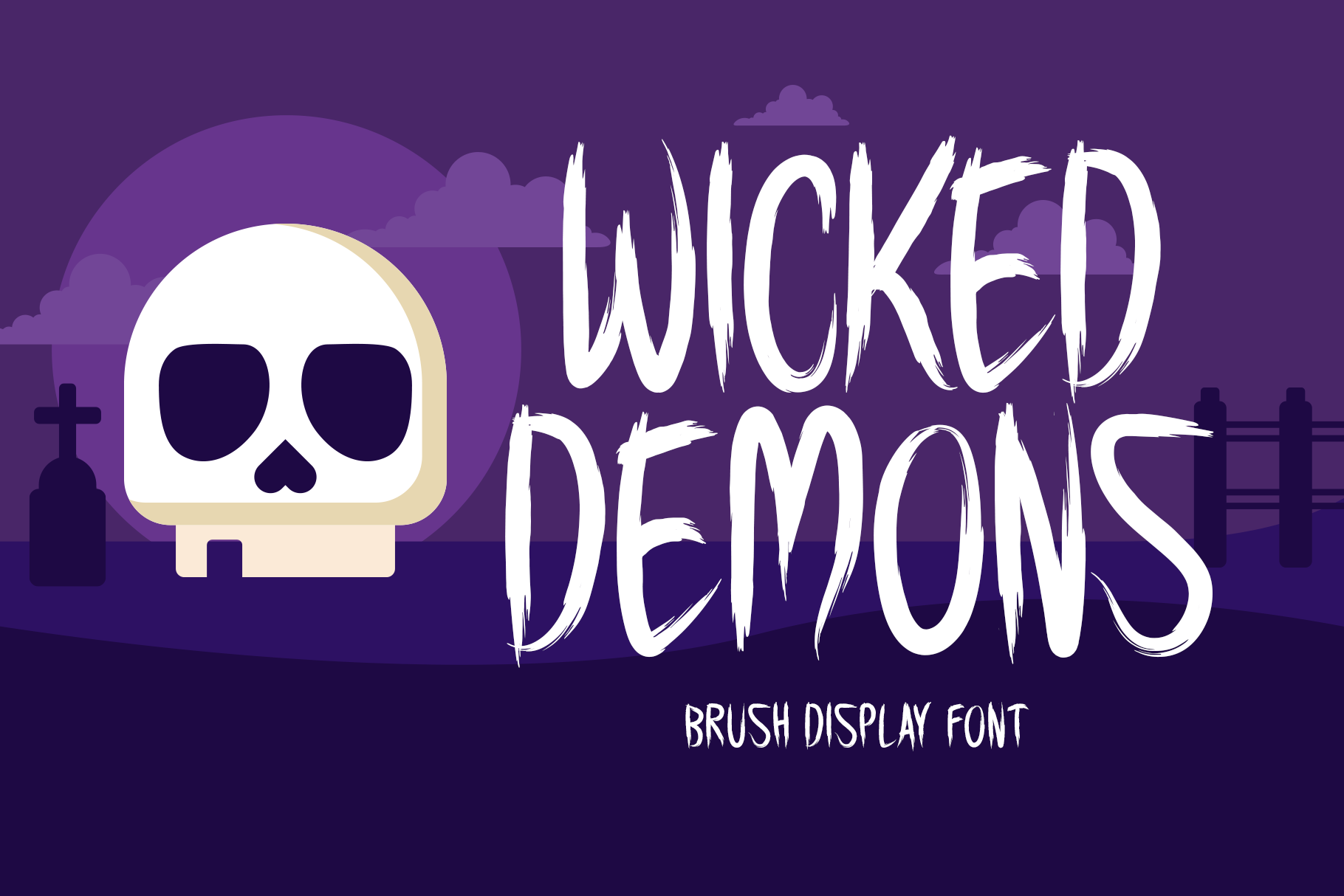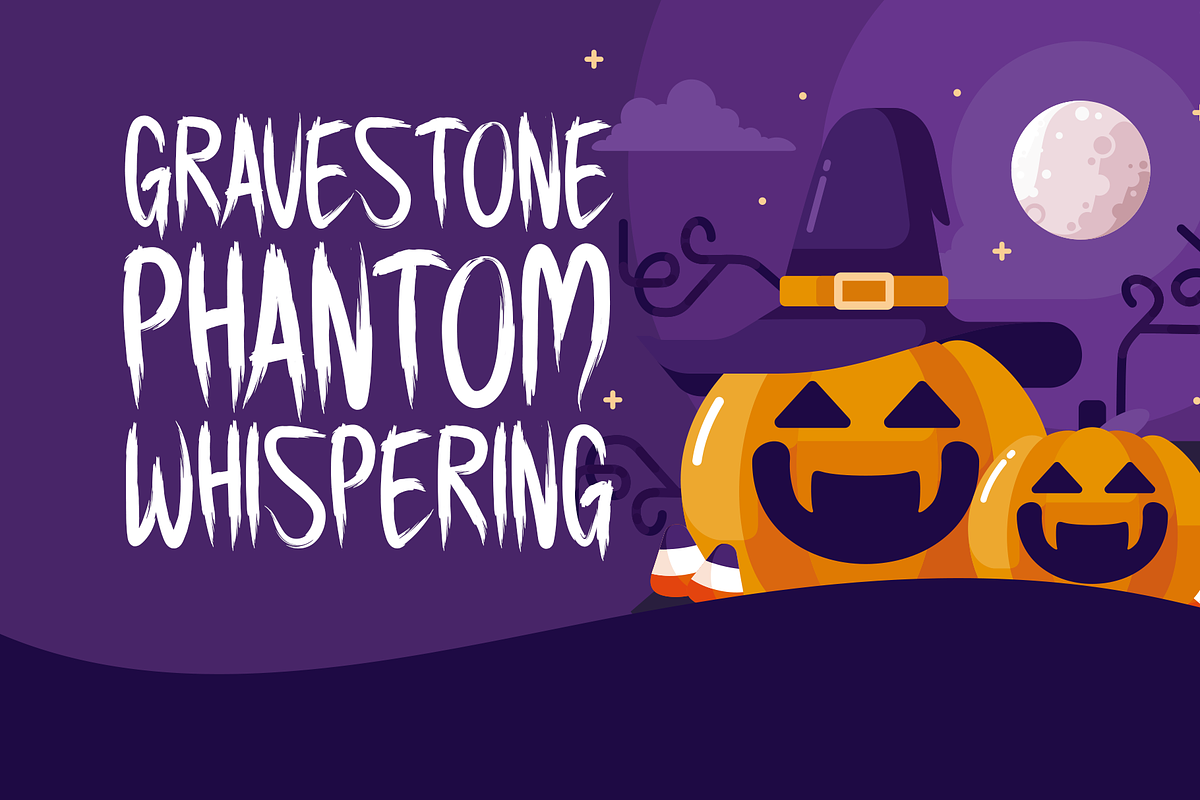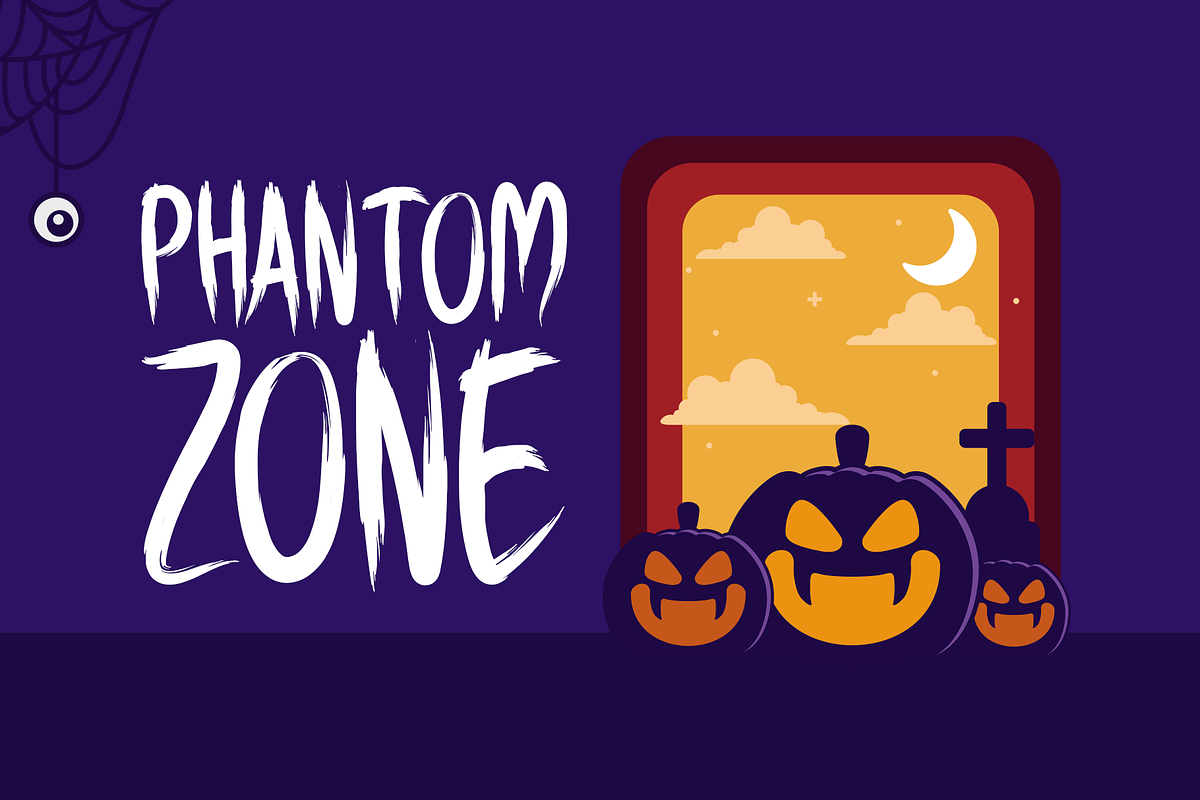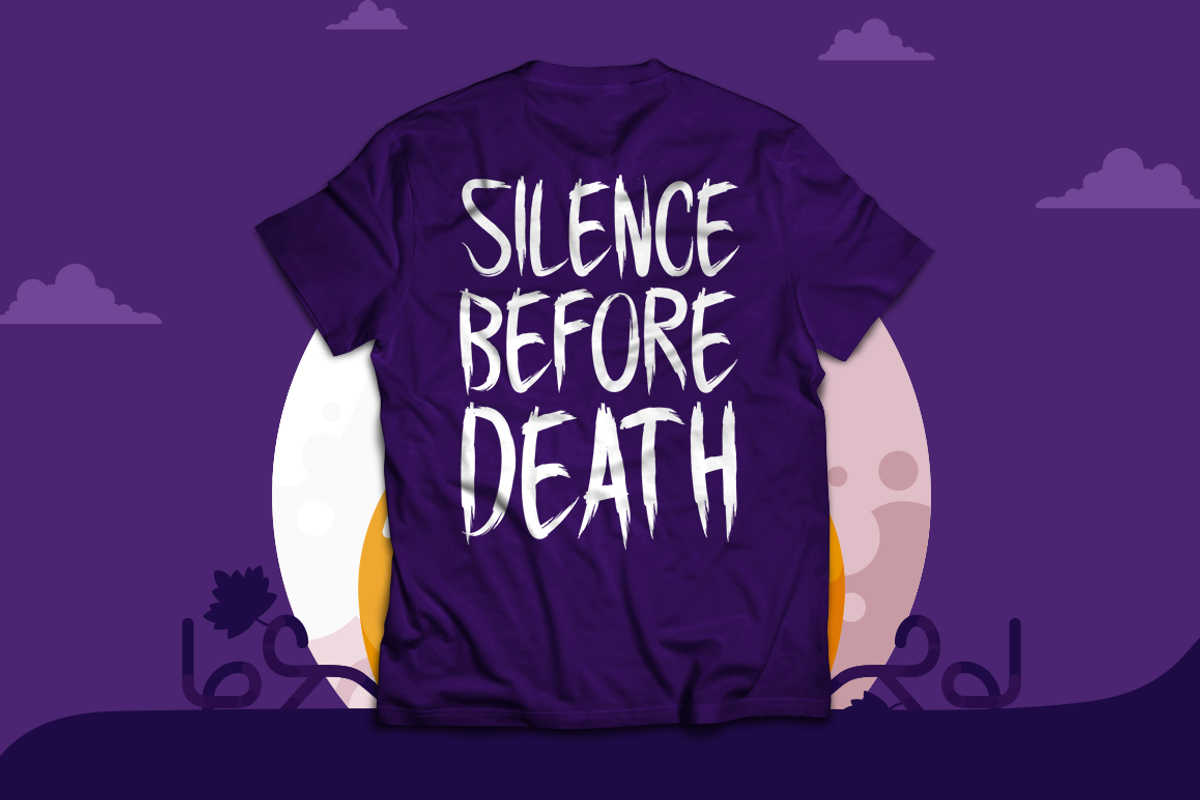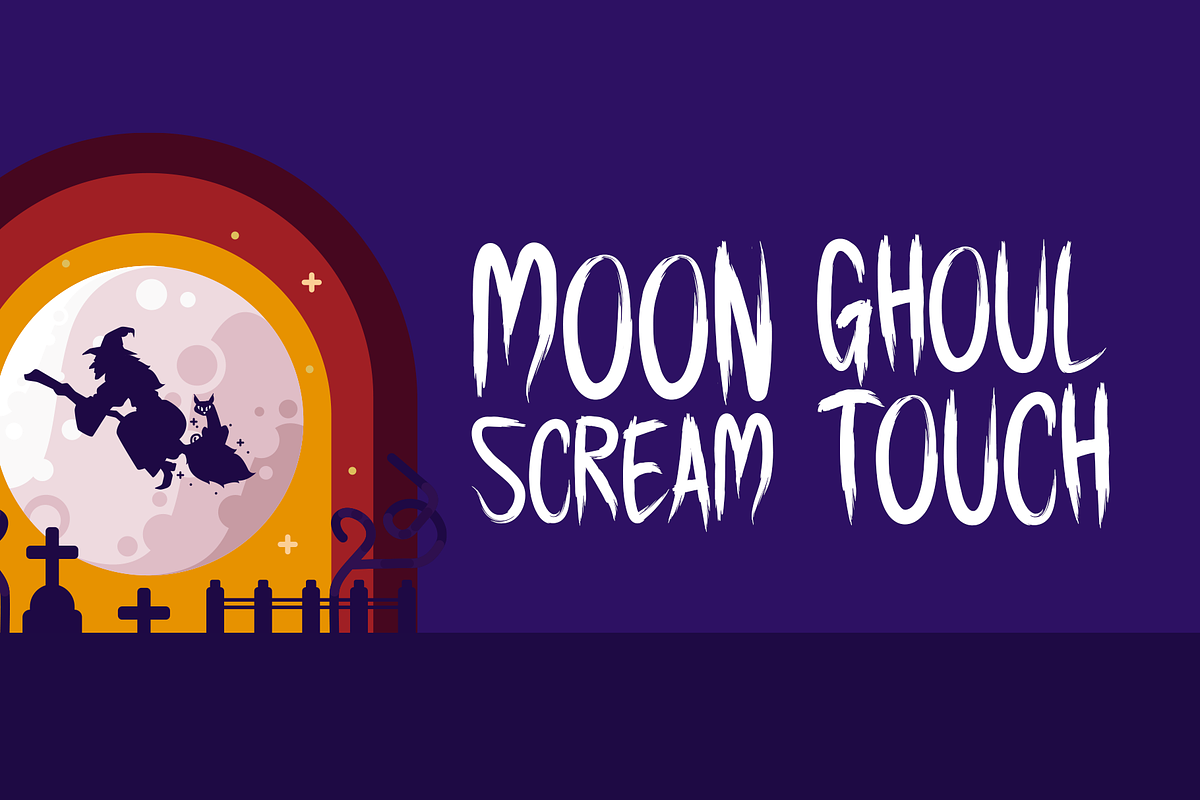
Wicked Demons Typeface
Introducing Ghost Region!
Ghost Region is a striking display font crafted to grab attention and leave a strong impression. Its unique style makes it highly versatile, perfect for both digital and print applications such as logos, t-shirts, posters, flyers, album artwork, social media graphics, and website headers. With its bold character and distinctive flair, Ghost Region adds personality and impact to any creative project.